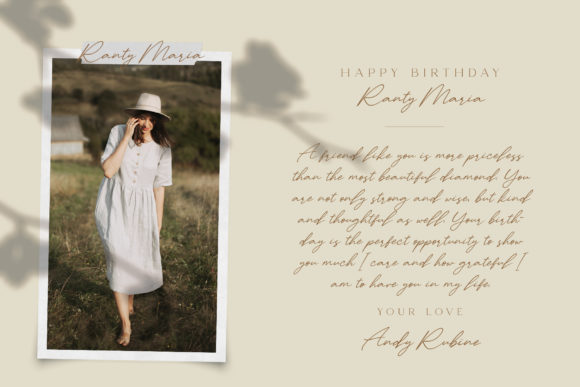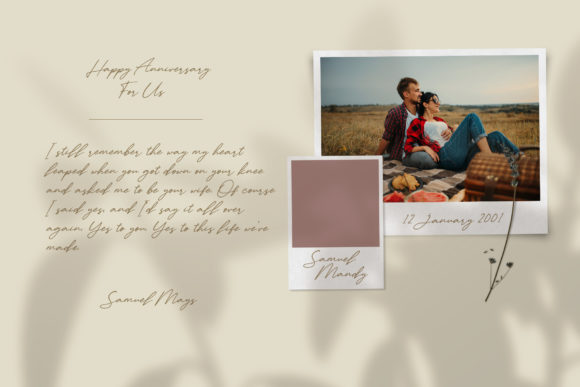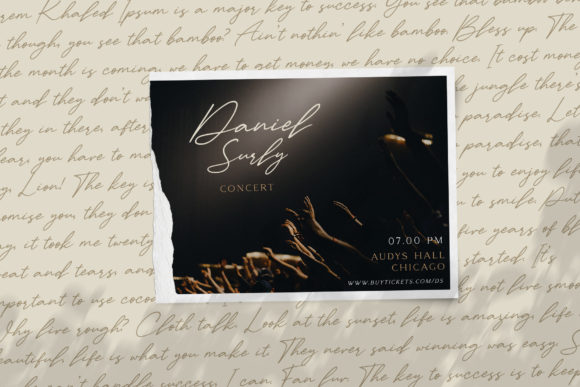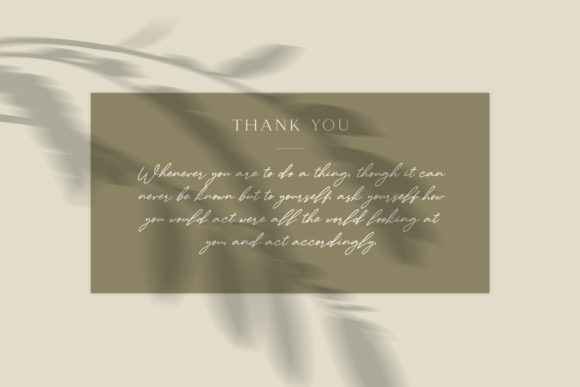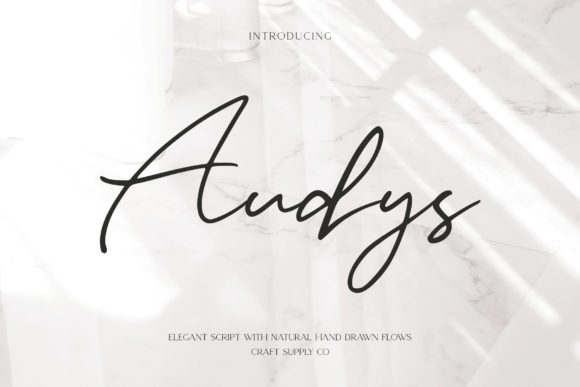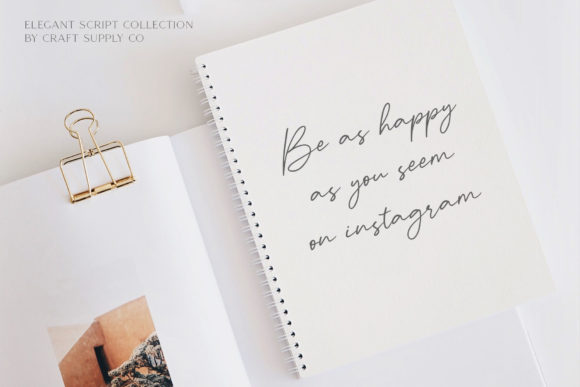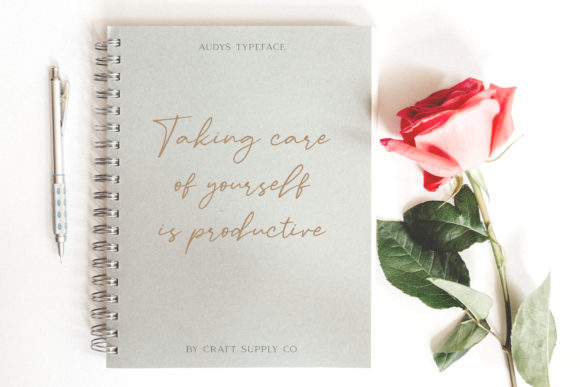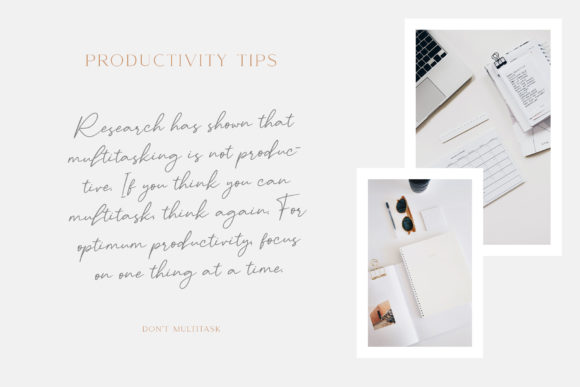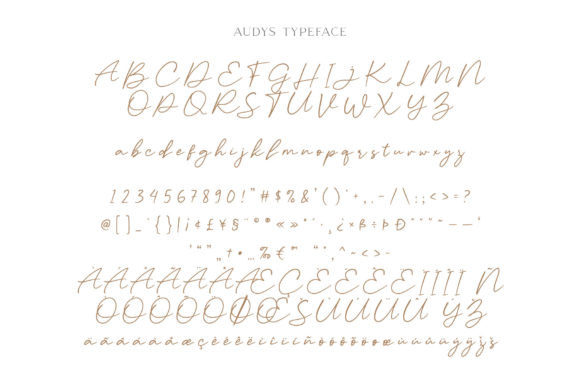
Audys Font
About Audys Font
Introducing “Audys,” a delicate and elegant handwritten font that exudes sophistication and charm. With its well-rounded and distinct letterforms, Audys is a true masterpiece that will captivate and inspire.
The beauty of Audys lies in its delicate strokes and graceful curves, giving each letter a refined and elegant appearance. Whether you’re designing wedding invitations, branding materials, logos, or any other project that requires a touch of sophistication, Audys will elevate your designs to new heights.
One of the remarkable features of Audys is its versatility. It seamlessly adapts to various design styles and themes, making it suitable for a wide range of projects. Whether you’re aiming for a romantic and dreamy aesthetic, a minimalist and modern look, or a vintage and nostalgic vibe, Audys effortlessly complements your vision.
The well-rounded and balanced letters of Audys ensure legibility and readability, making it perfect for both display purposes and longer blocks of text. Its elegant and flowing nature adds a touch of refinement and grace to any design, making it ideal for invitations, stationery, quotes, and more.
Audys invites you to fall in love with its versatility. Experiment with different letter combinations, create beautiful ligatures, or add stylish swashes to add a unique and personal touch to your designs. With Audys, the possibilities are endless, and your creations will truly stand out.
Whether you’re a professional designer or someone who enjoys crafting and DIY projects, Audys is a font that will inspire and delight. Its delicate and elegant nature brings a sense of sophistication and artistry to your work, making each design a true masterpiece.
In summary, Audys is a delicate and elegant handwritten font that combines beauty, versatility, and charm. Its distinct letterforms and well-rounded design make it a perfect choice for creating spectacular and breathtaking designs. Fall in love with Audys and let its versatility and elegance elevate your creative projects to new levels of artistry and sophistication.